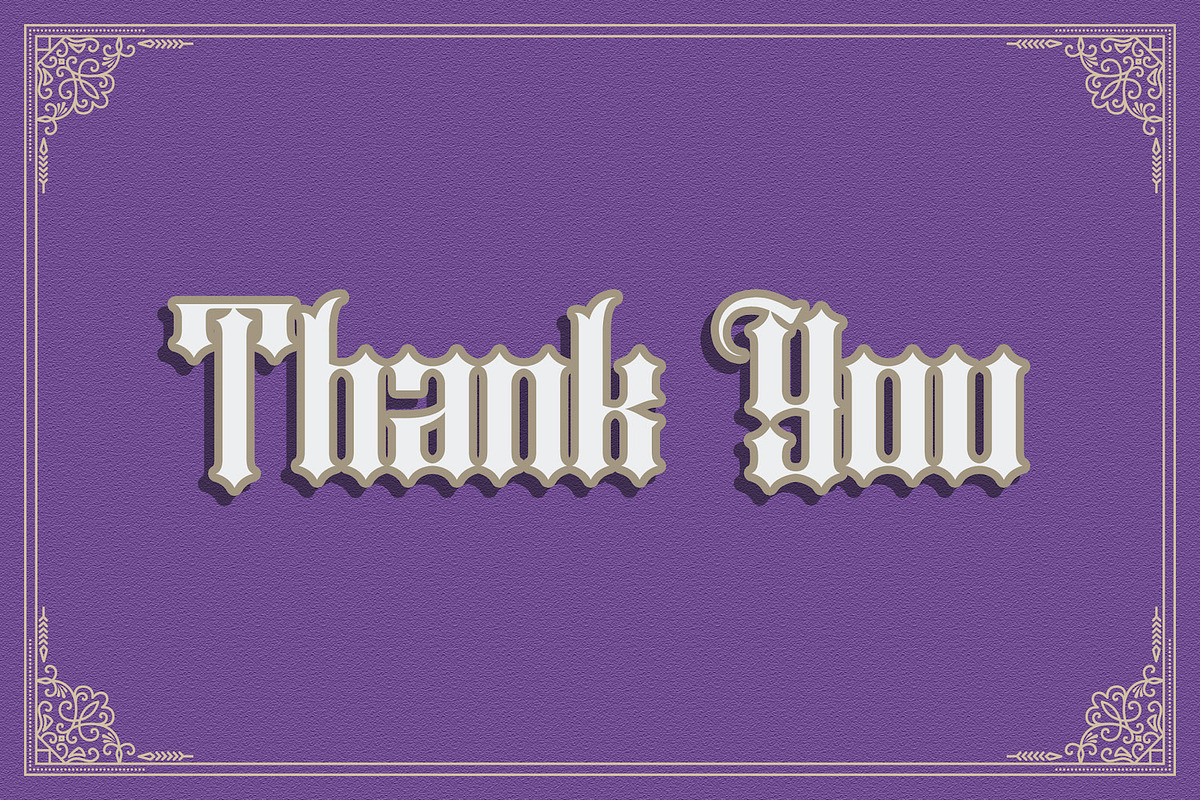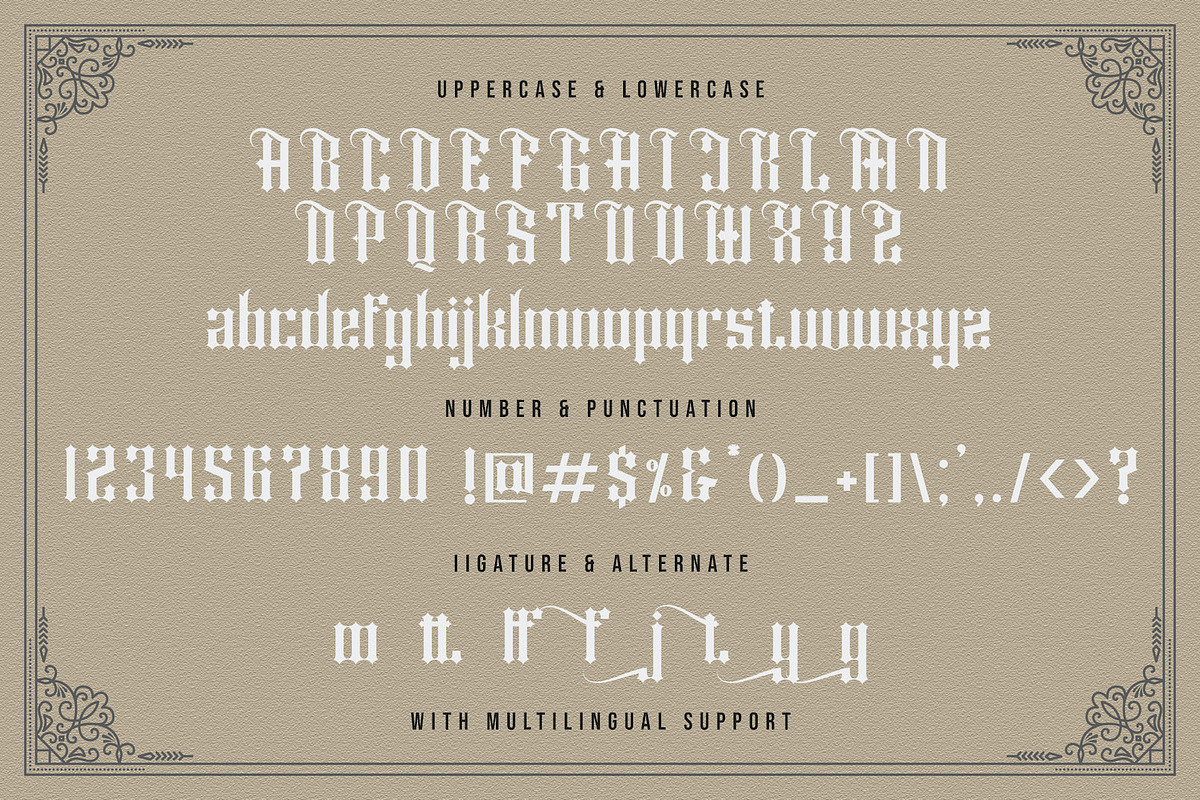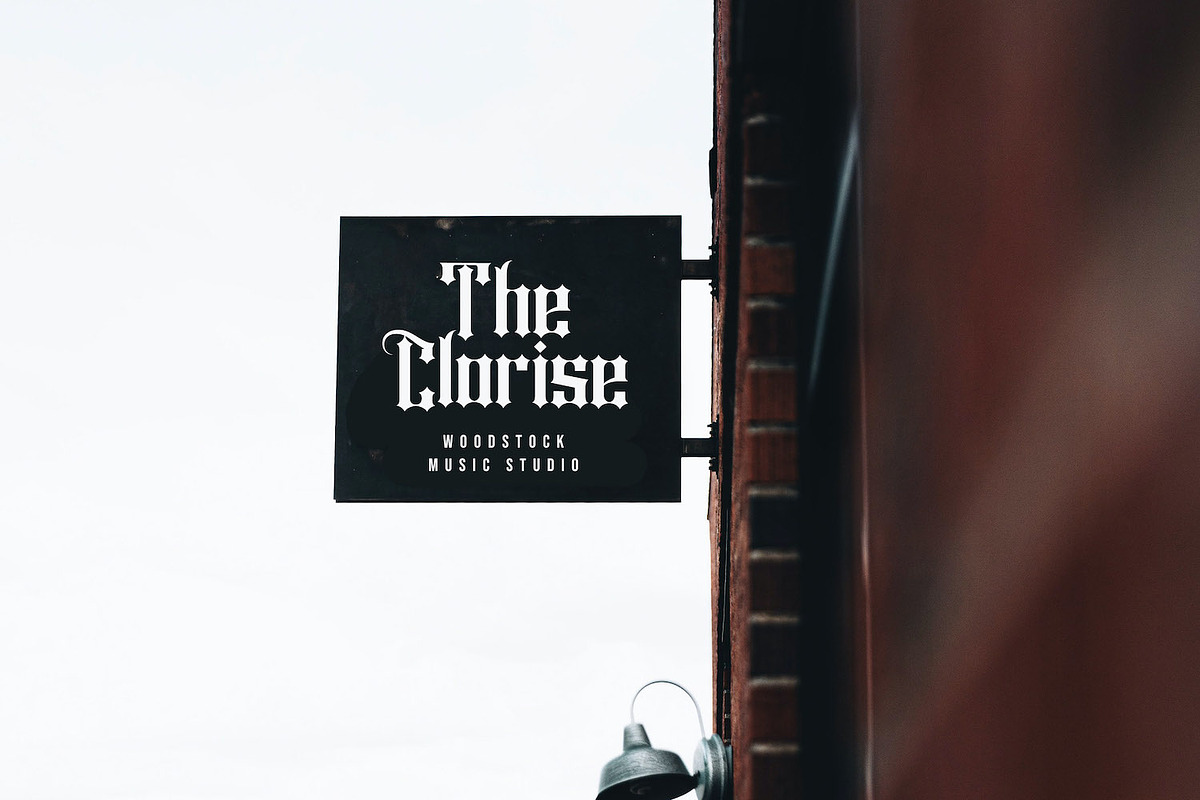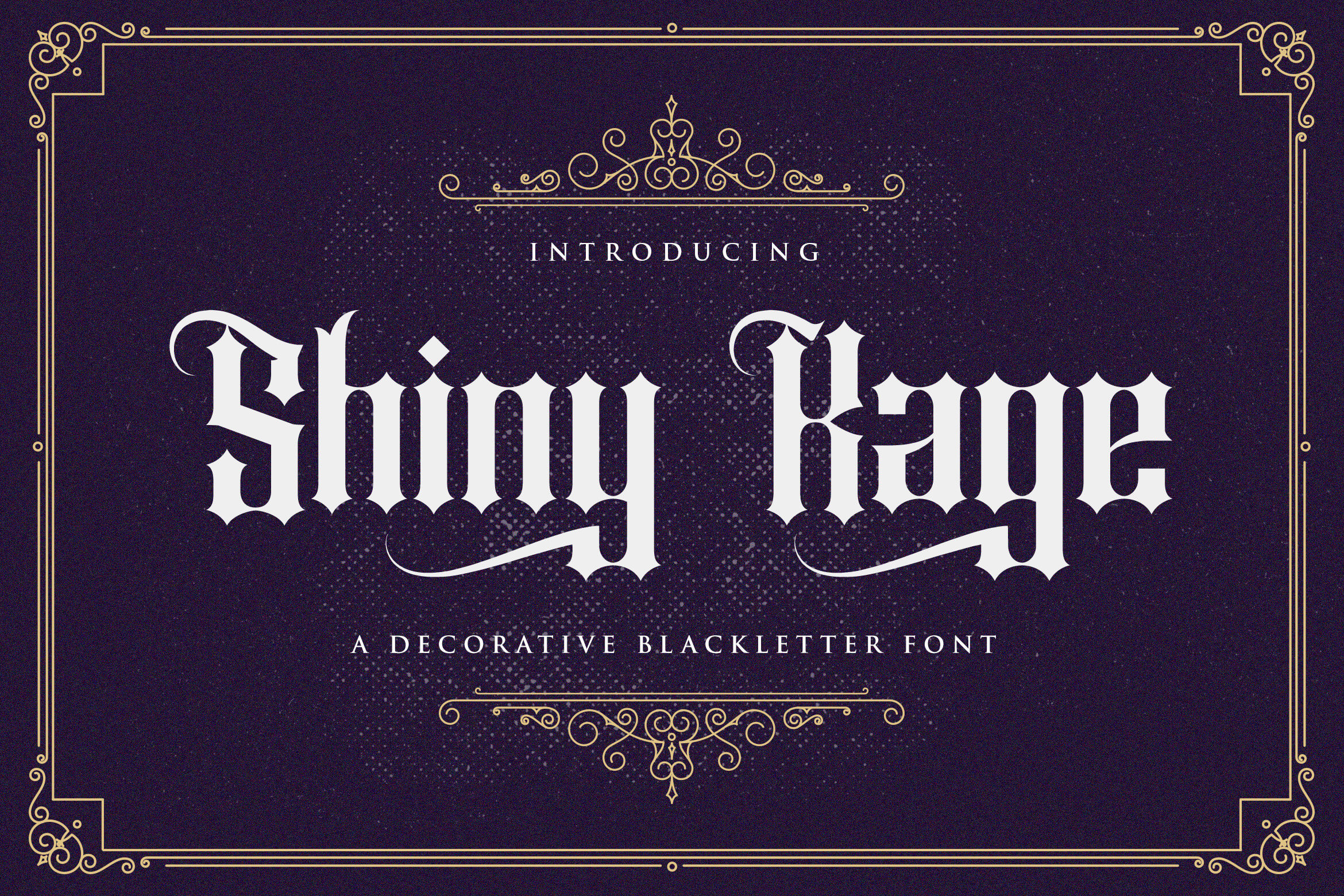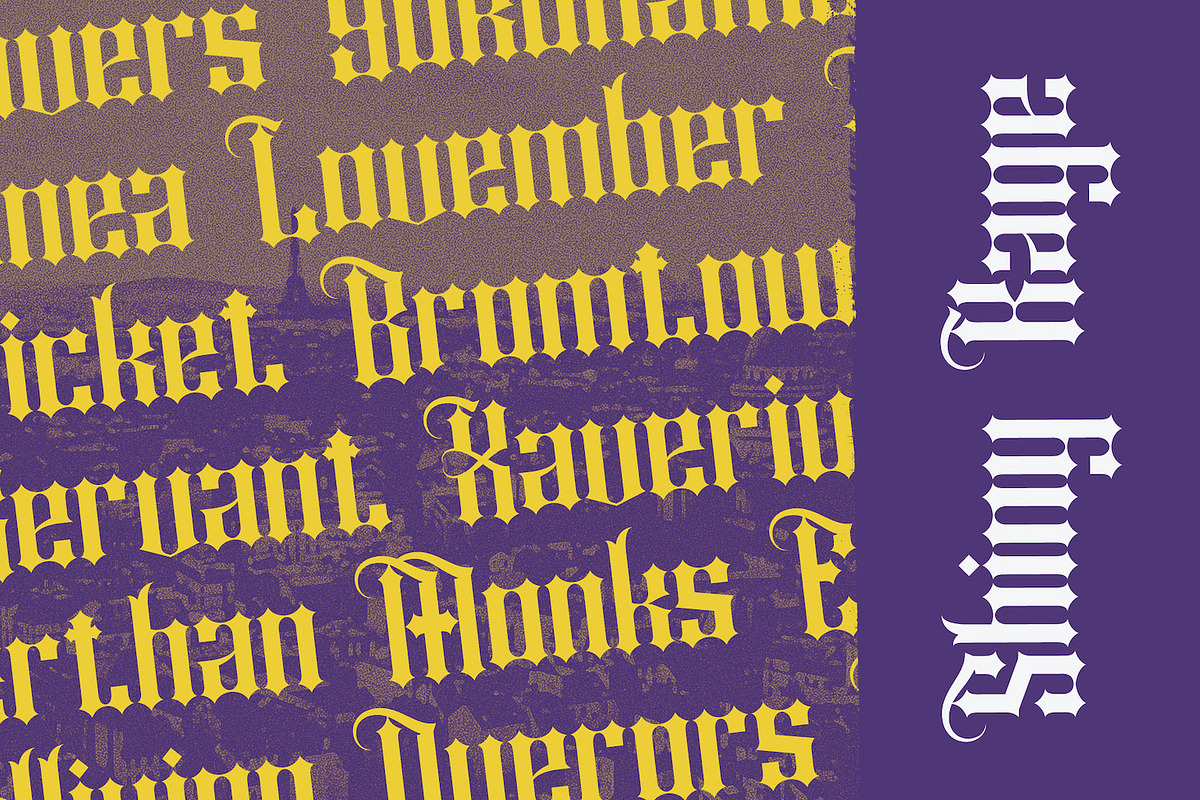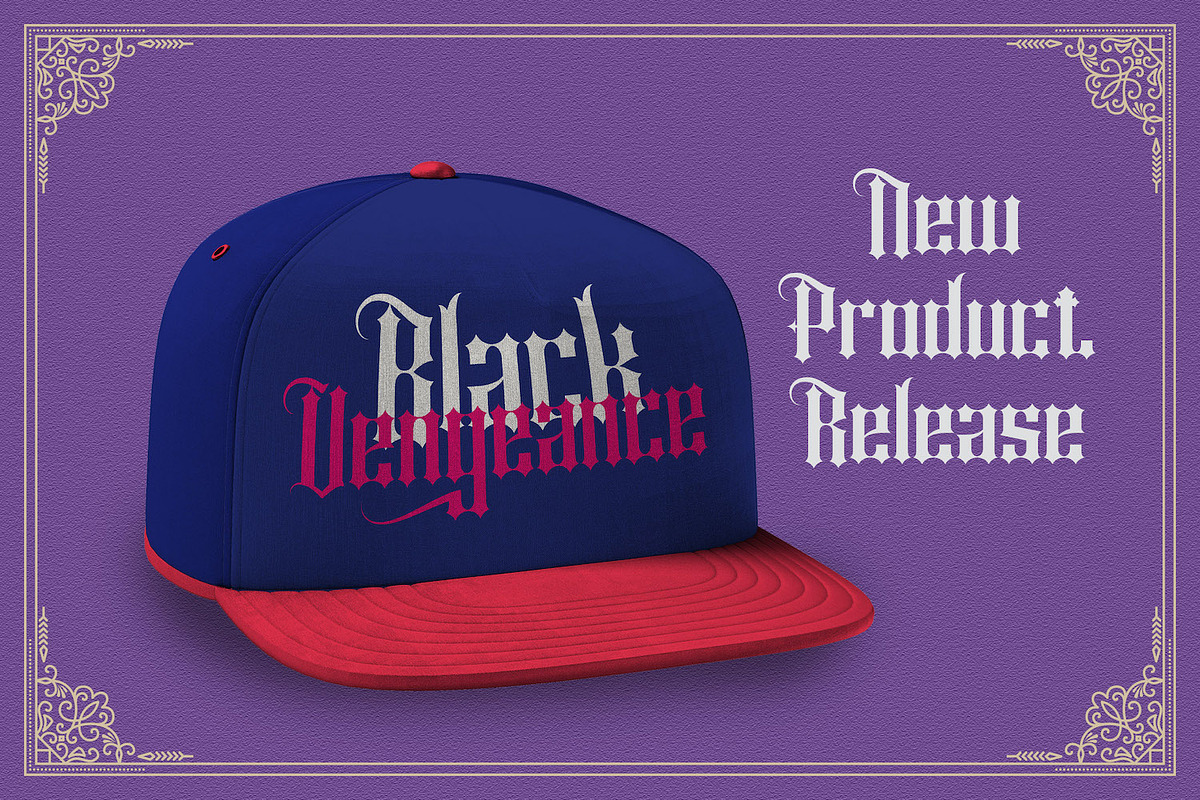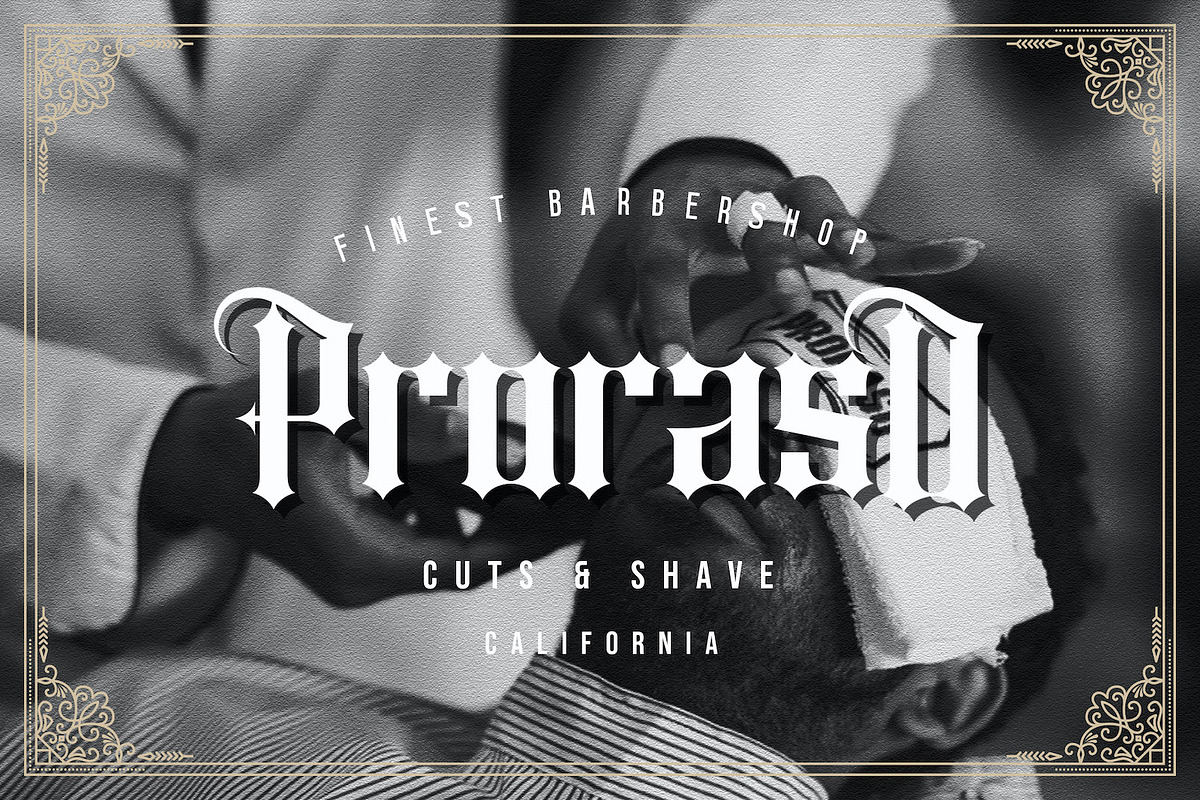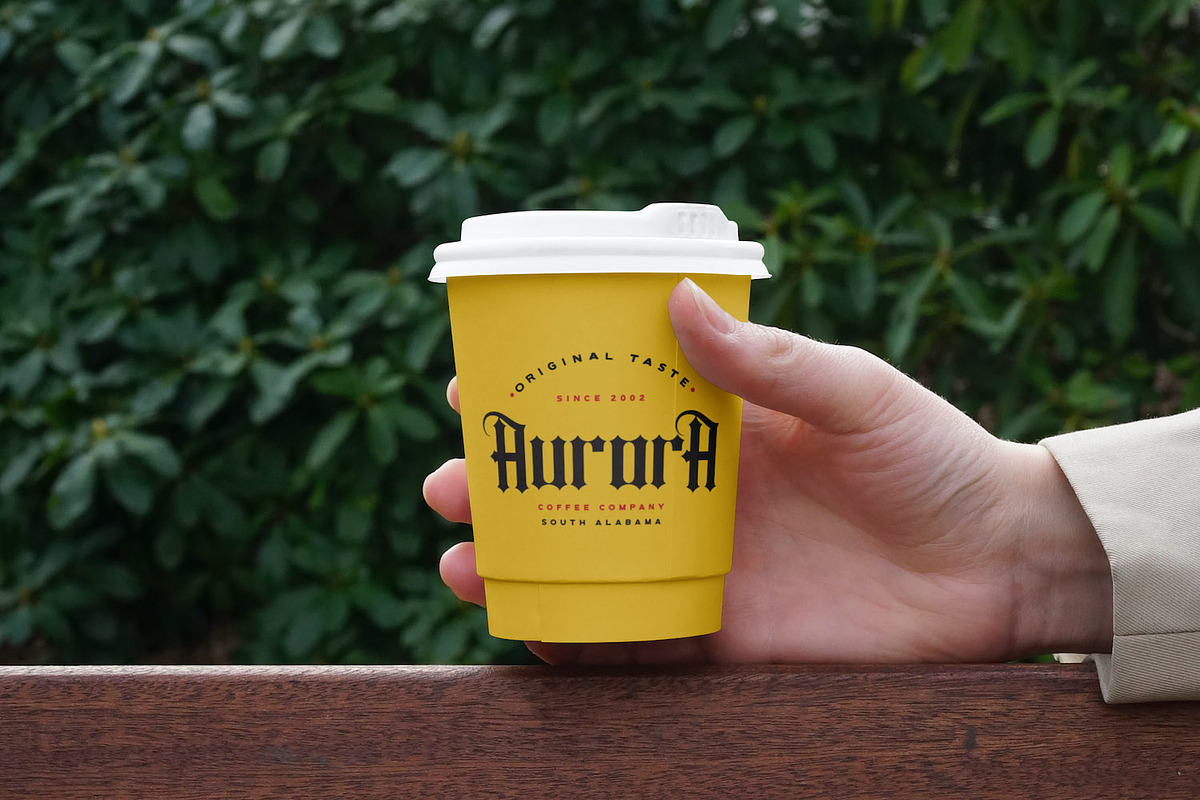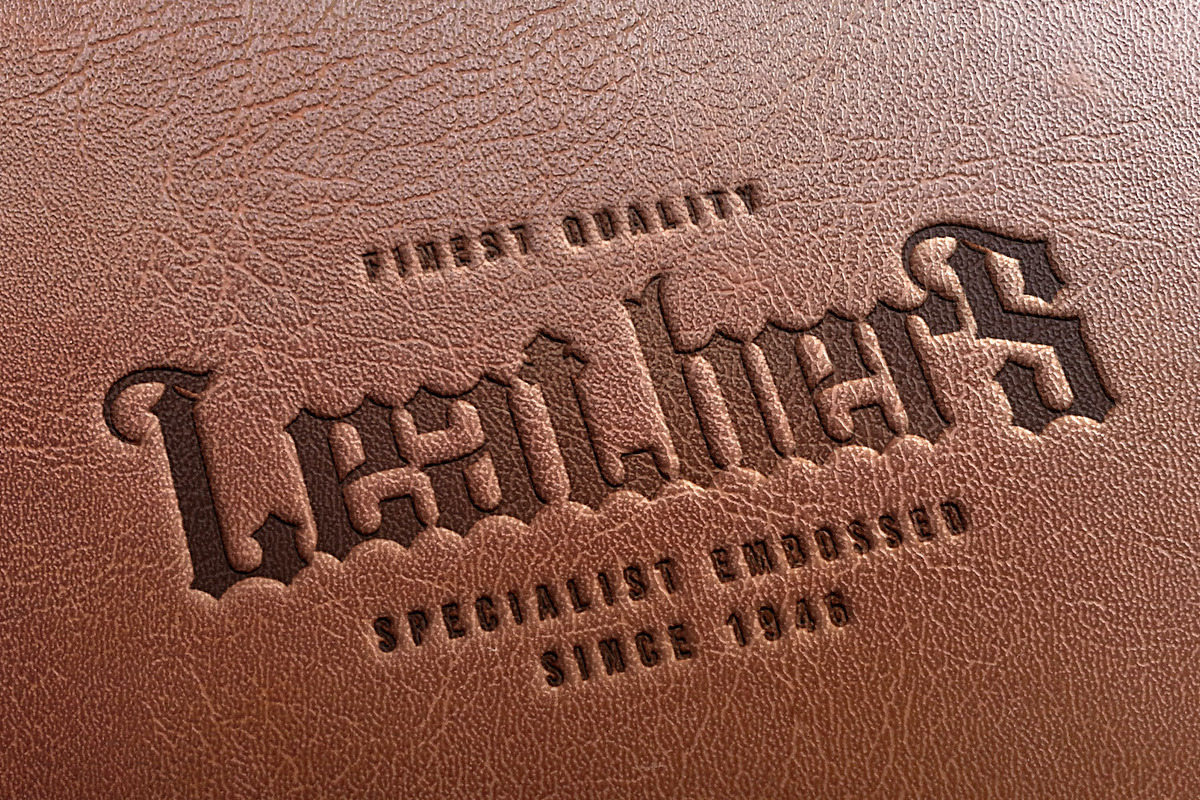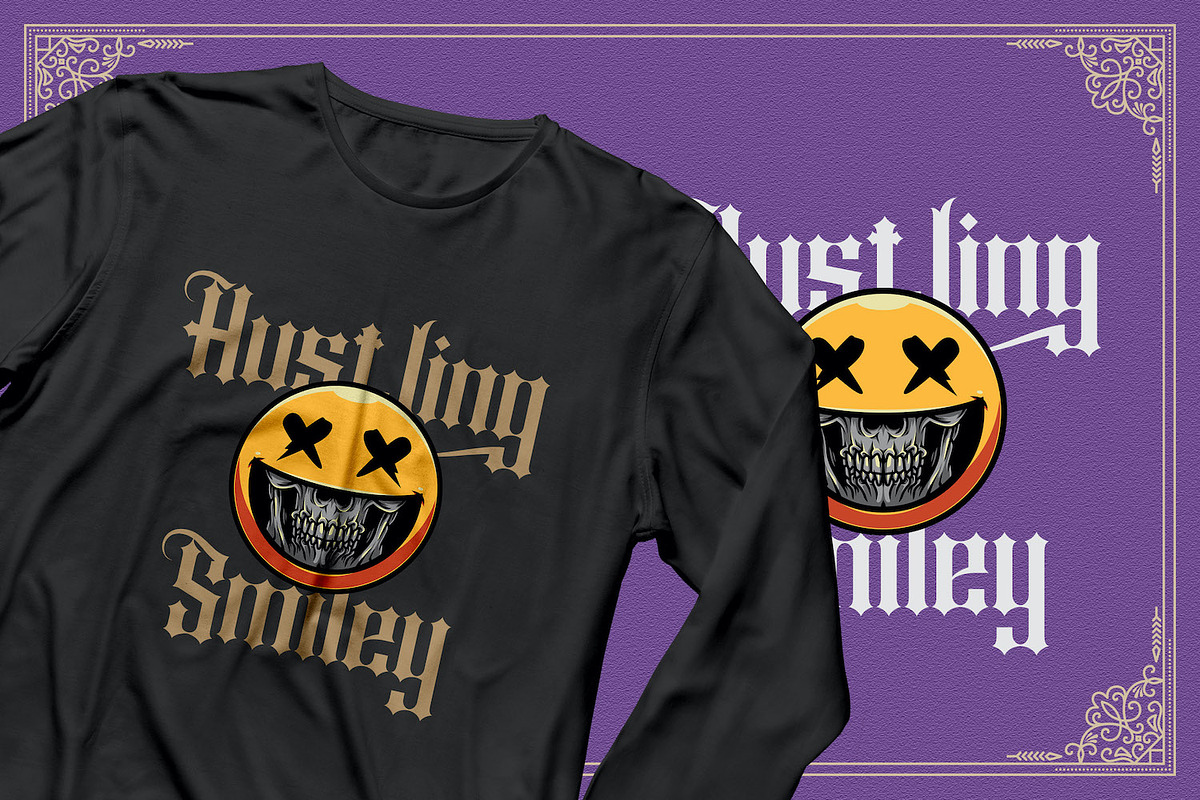
Shiny Kage - Blackletter Font
Introducing Shiny Kage - Blackletter Font
Shiny Kage is an incredibly authentic and daring blackletter font. Add this font to your favorite creative ideas and notice how it makes them stand out!